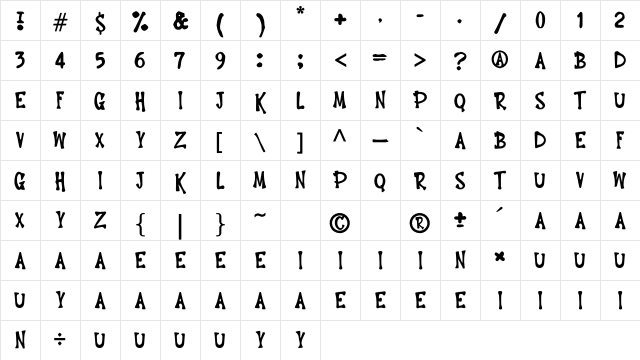
Hello Bones Regular Free Font
Hello Bones Regular
Designer: Mama Bilqis
Design Context for Hello Bones
Hello Bones is a composed and adaptable typeface that performs quietly and consistently across a wide range of design contexts.